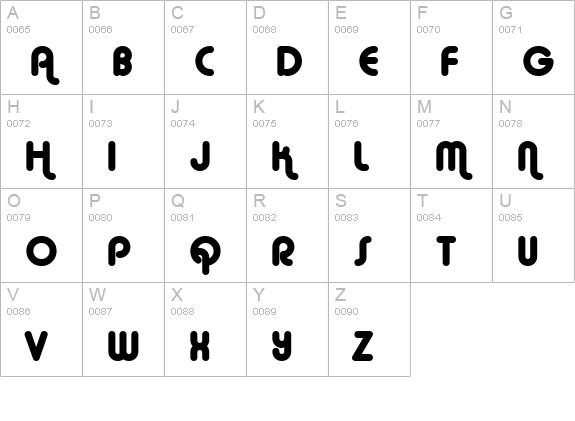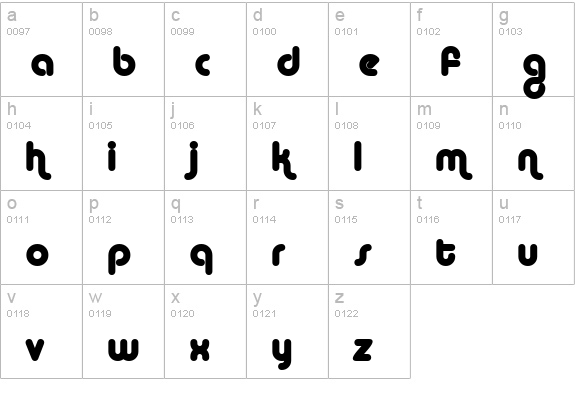
Alba Matter Font Details
Alba Matter font is a stunning display typeface that effortlessly combines elegance with modernity. Its sleek lines and balanced curves make it perfect for a wide range of design projects, from branding to editorial design. The font exudes a timeless sophistication that will surely elevate any piece of work it is used in. Best of all, Alba Matter font is available for free download at FontsMarket.com. This means that you can access this beautiful typeface at no cost, making it a fantastic addition to your font collection without breaking the bank. Don't miss out on the opportunity to enhance your designs with the exquisite Alba Matter font today!